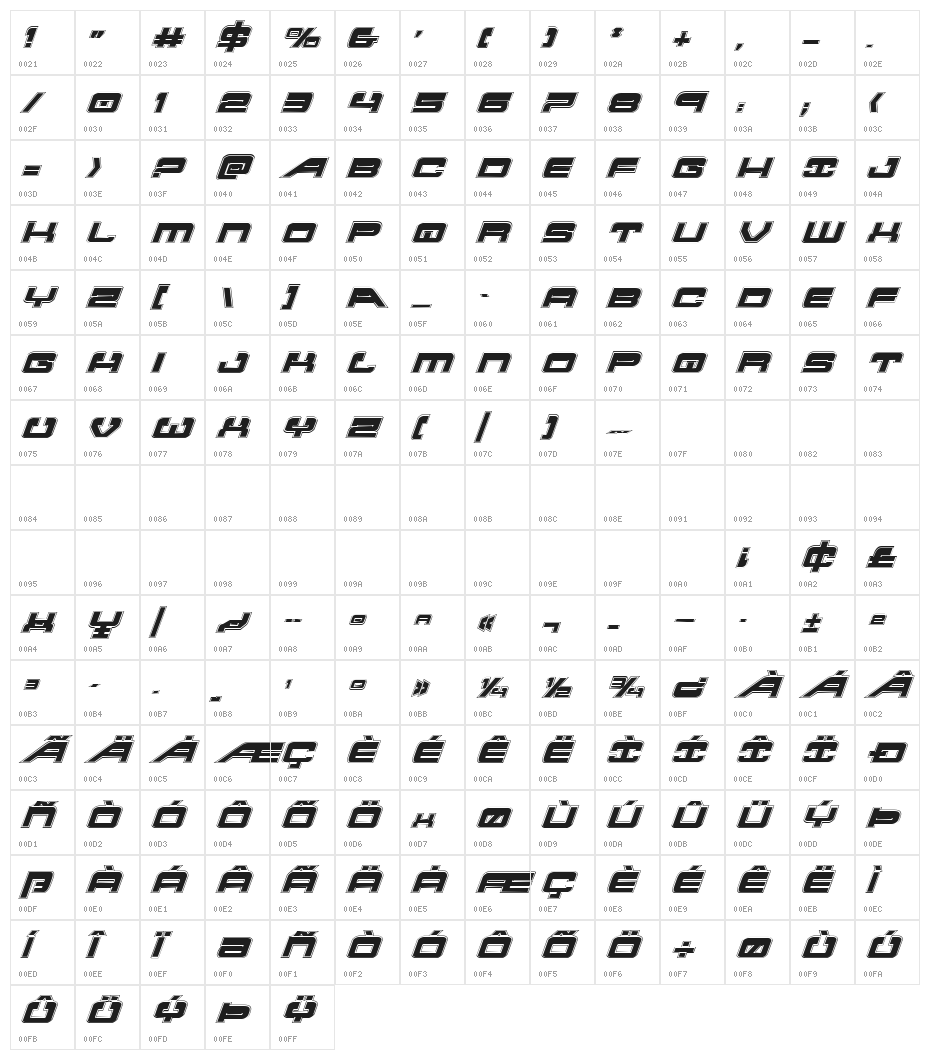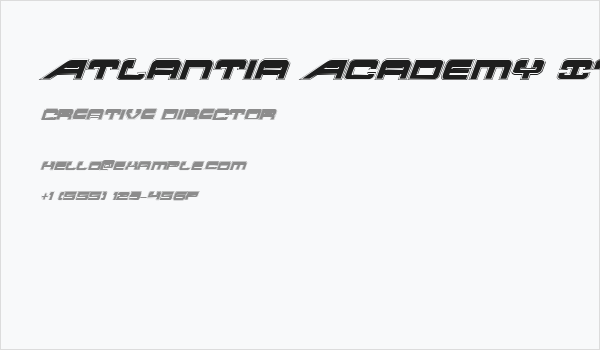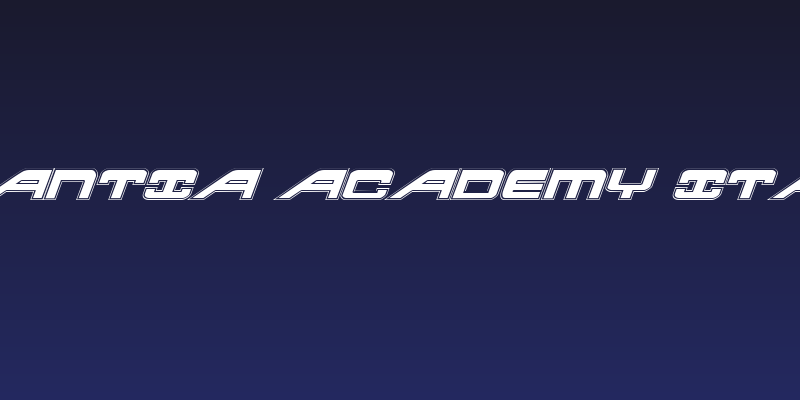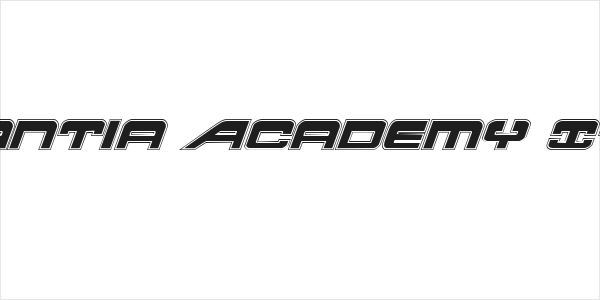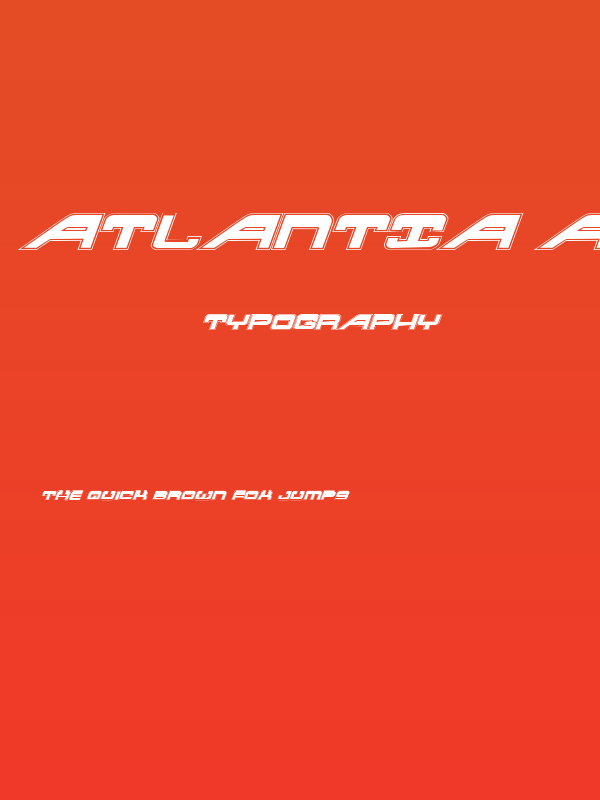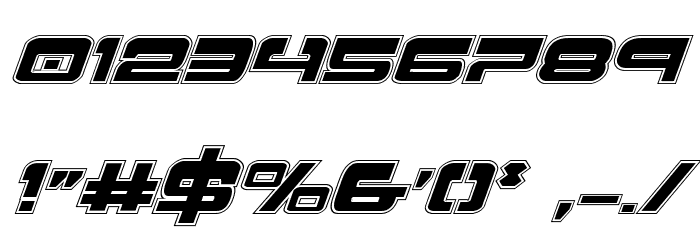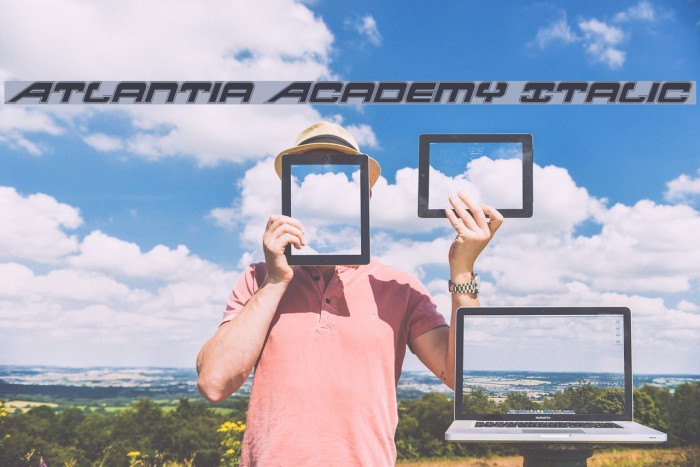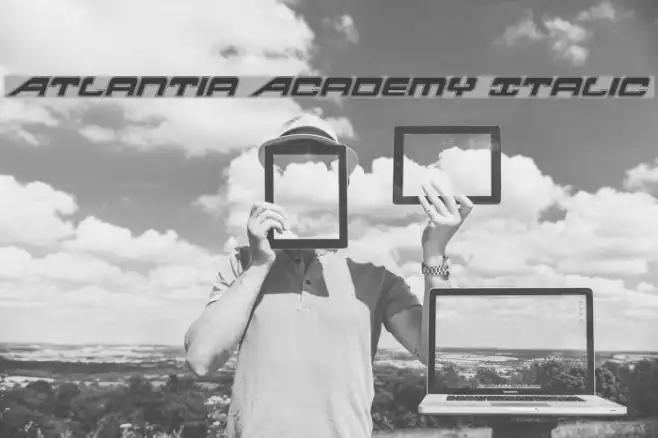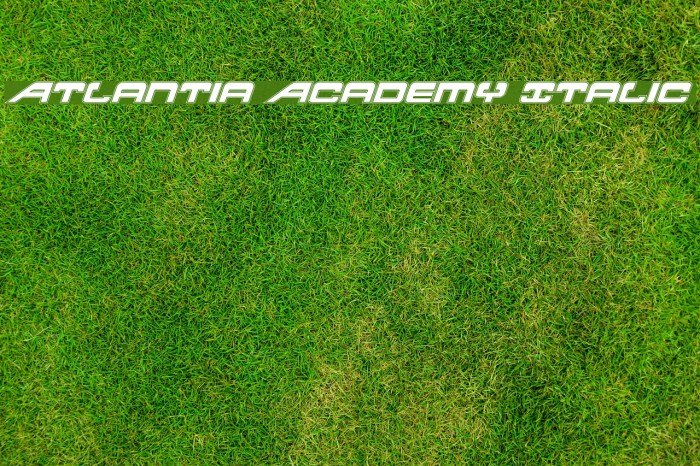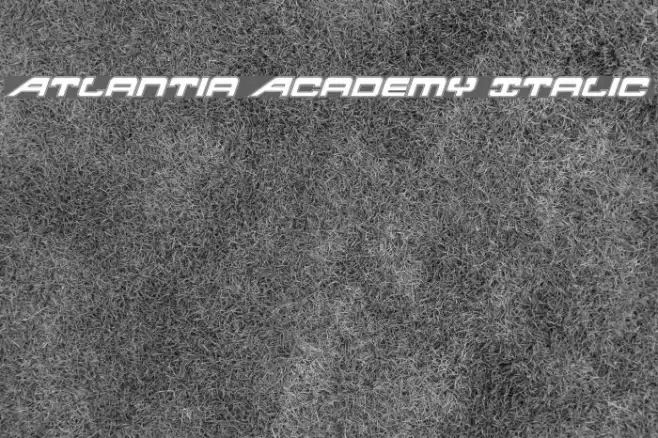
Atlantia Academy Italic Font
Atlantia Academy Italic Description
This font features a bold, italicized style with a futuristic and dynamic appearance. The characters are designed with a distinct slant, giving them a sense of motion and speed. The strokes are thick and consistent, with a double-line effect that adds depth and dimension. The overall design is sleek and modern, making it suitable for projects that require a strong visual impact. The letters are well-spaced, ensuring readability while maintaining a compact look. This font is ideal for headlines, logos, and any design that seeks to convey a sense of innovation and forward-thinking.
| Proposed Projects | Ideal for technology branding, sports team logos, sci-fi movie posters, and modern advertising campaigns. |